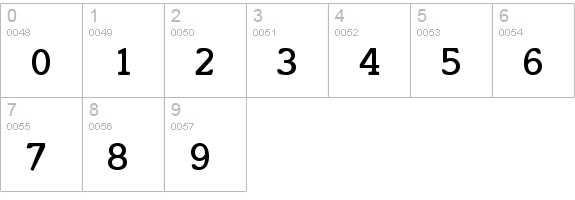
ItaliaEF-Medium Font Details
ItaliaEF-Medium is a balanced, medium-weight variant in the ItaliaEF typeface family \xE2\x80\x94 well suited to sub-headlines, navigation, and balanced editorial work.
ItaliaEF-Medium font is an exquisite and versatile typeface that effortlessly blends elegance and functionality. With its medium weight, it strikes the perfect balance between boldness and subtlety, making it ideal for a wide range of design projects. Whether you're working on corporate branding, editorial layouts, or web design, this font will add a touch of sophistication to your creations. Featuring clean lines and well-defined letterforms, ItaliaEF-Medium font offers excellent legibility and readability, ensuring that your message is conveyed with clarity. Its timeless and classic design captures the essence of Italian craftsmanship, exuding a sense of refinement and style. One of the standout features of ItaliaEF-Medium font is that it is freely available to download at FontsMarket.com. This means that you can easily access and utilize this font without any restrictions or limitations. Whether you're a professional designer or a casual user, the availability of this font for free makes it a valuable resource that can enhance your creative projects without breaking the bank. With ItaliaEF-Medium font, you have the freedom to explore various design possibilities and unleash your creativity. Its versatility allows it to seamlessly adapt to different design styles and contexts, making it a reliable choice for both print and digital applications. Whether you're creating logos, headlines, or body text, this font will elevate your designs and give them a touch of sophistication. In conclusion, ItaliaEF-Medium font is a premium typeface that combines elegance, functionality, and accessibility. Its freely available download option at FontsMarket.com makes it an invaluable resource for designers and enthusiasts alike. So why wait? Unlock the potential of your design projects with ItaliaEF-Medium font and bring your vision to life with style and flair.